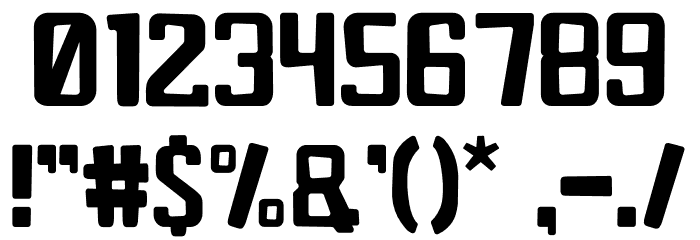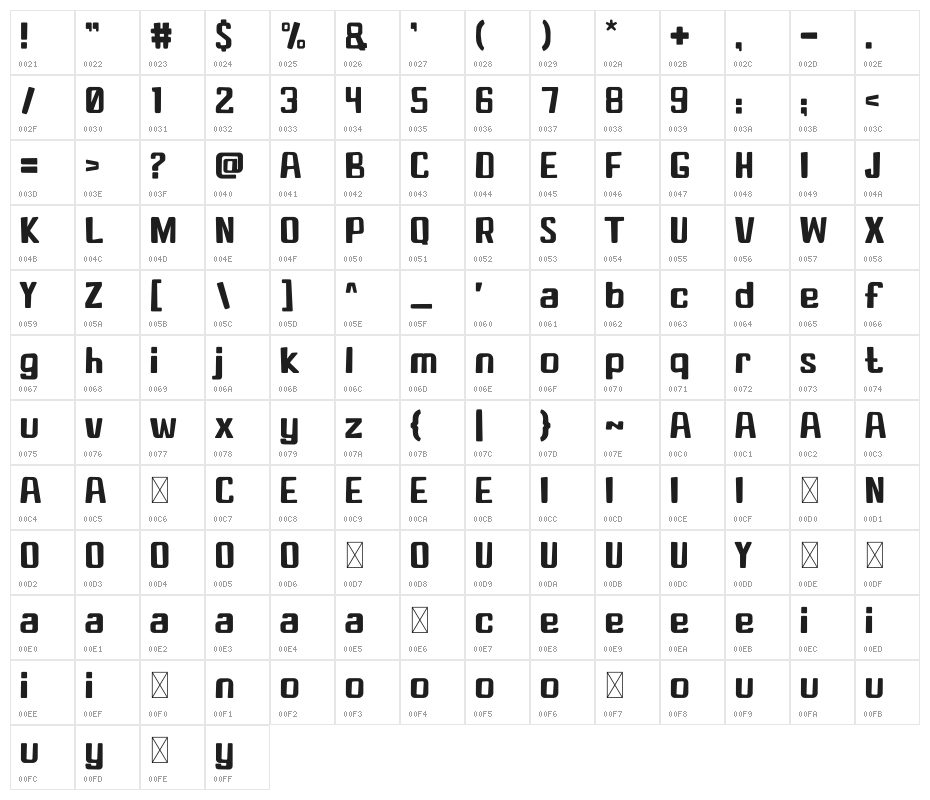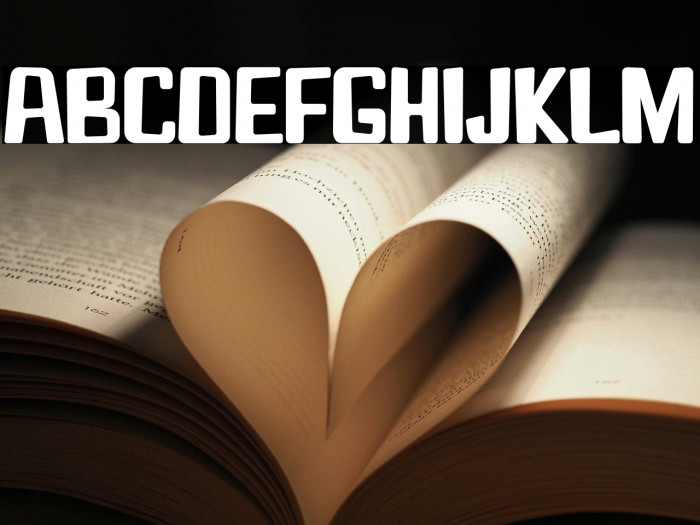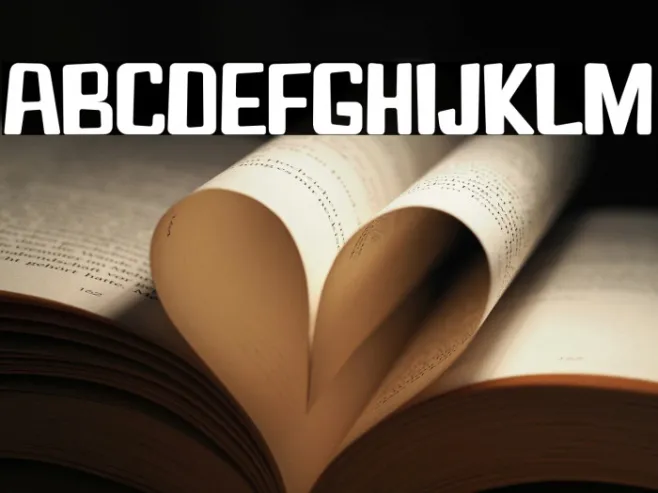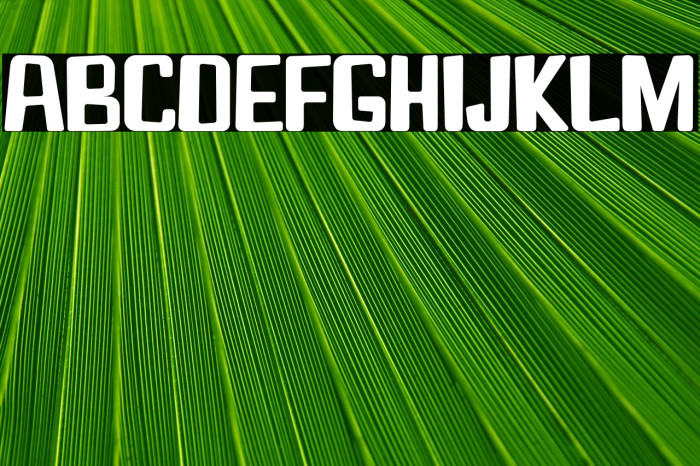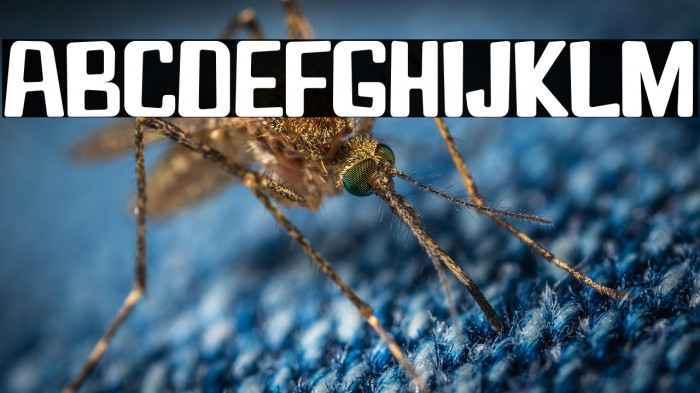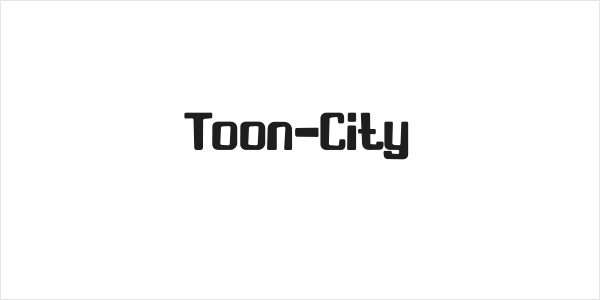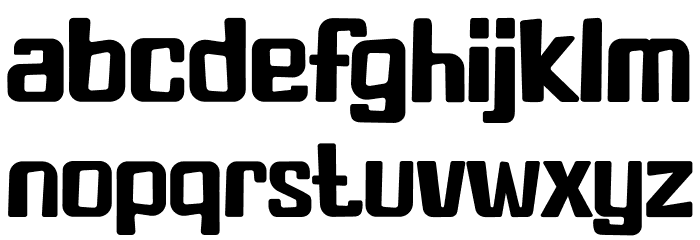
Toon-City Font
Toon-City Description
This font features a playful and bold style, characterized by its thick, rounded edges and slightly irregular shapes, giving it a cartoonish and friendly appearance. The uppercase and lowercase letters maintain a consistent weight, contributing to its cohesive look. The numbers and special characters follow the same design principles, ensuring uniformity across all glyphs. Its boldness and unique style make it stand out, making it suitable for projects that require a fun and engaging visual element.
| Overall Style | Playful, Cartoonish |
| Proposed Projects | Ideal for children's books, comic strips, playful branding, and animated video titles. |